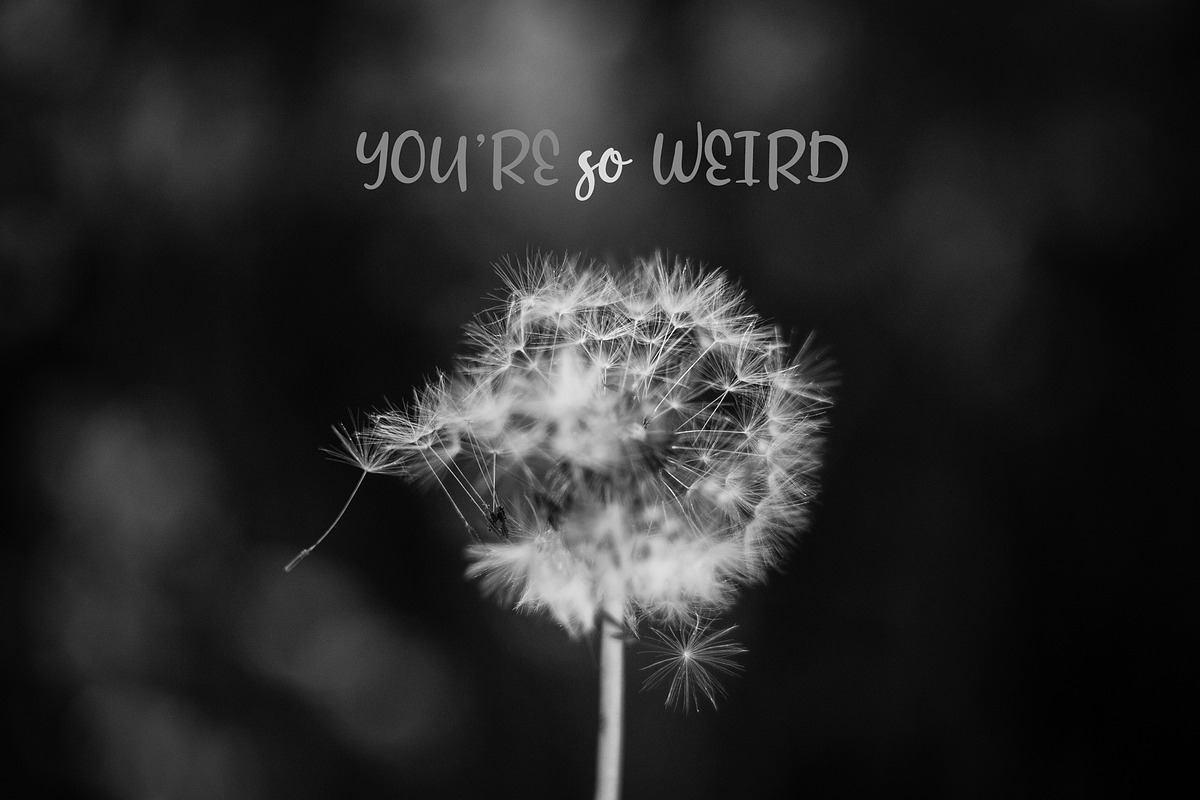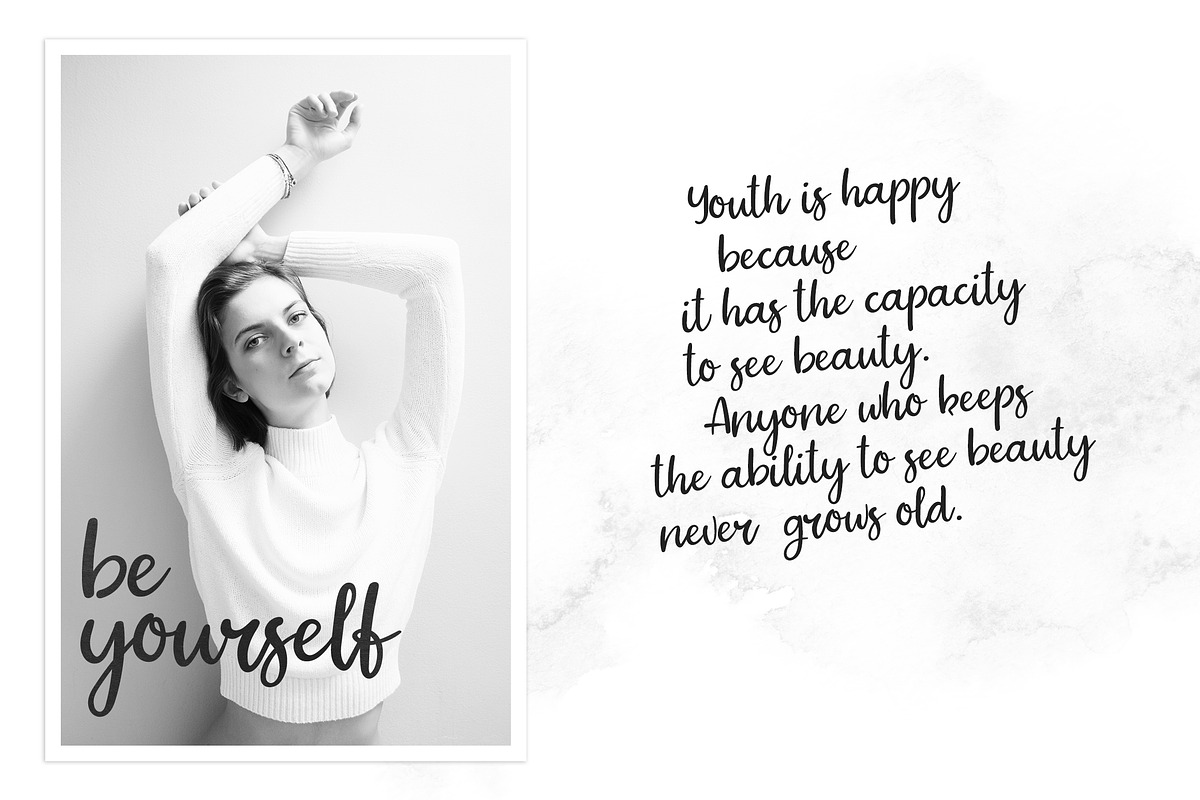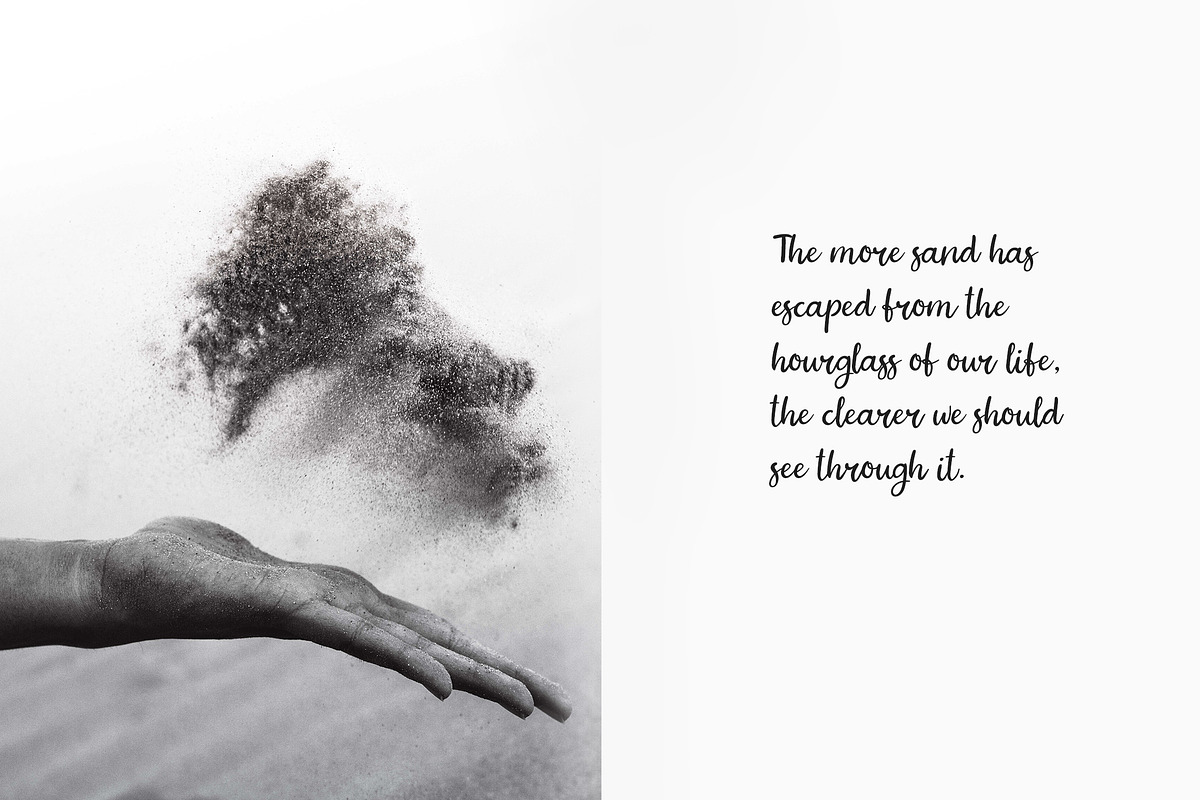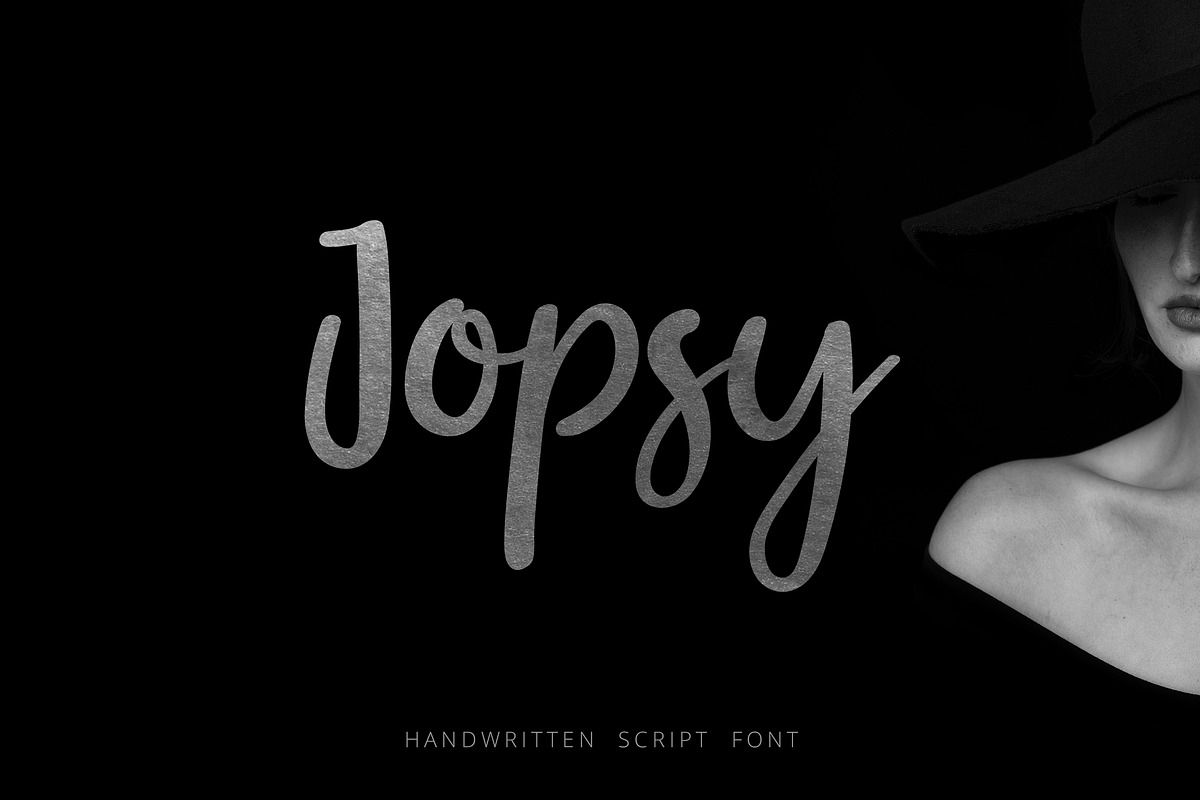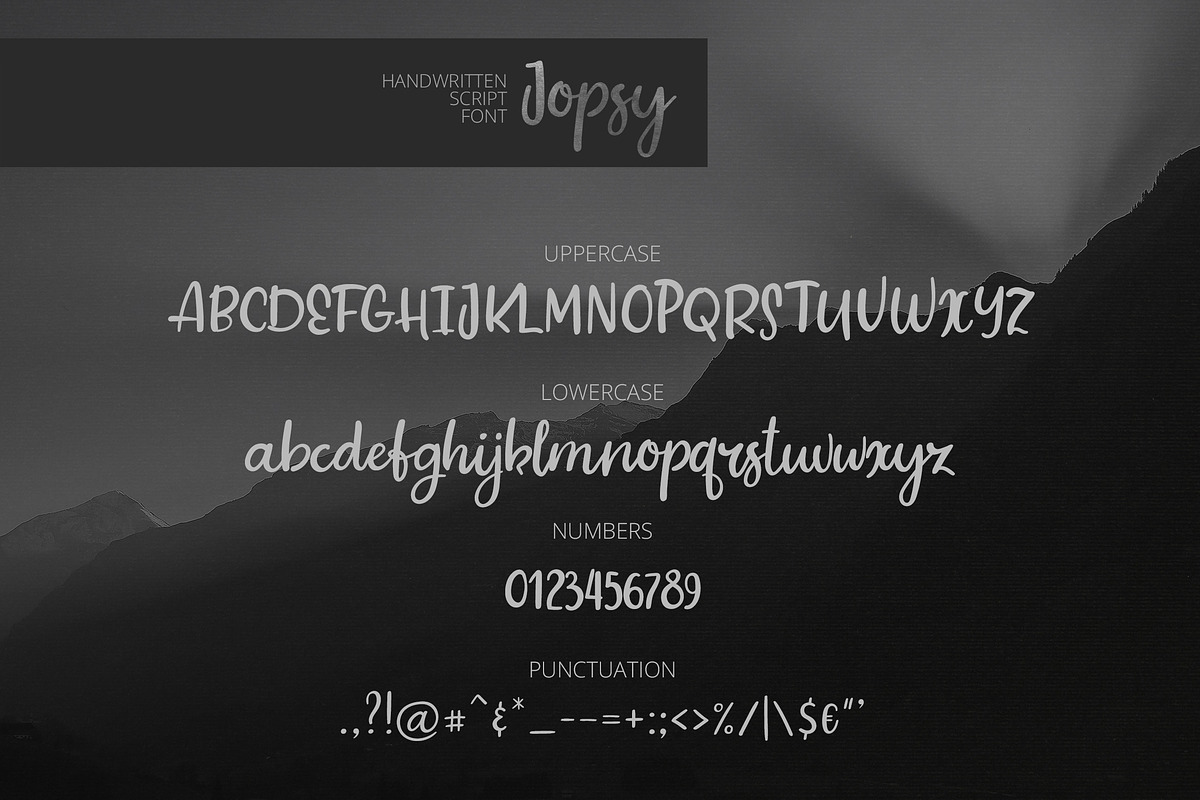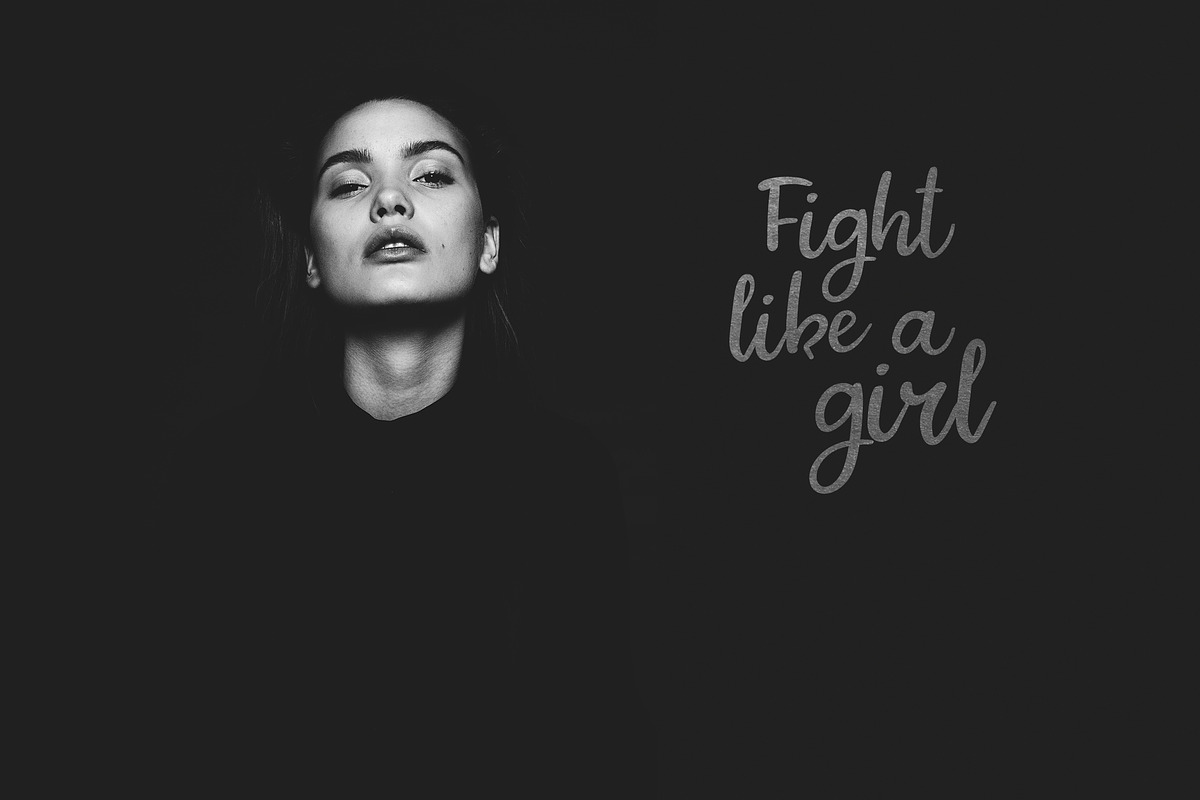
Jopsy. Handwritten Font
Hello! Jopsy is casual handwritten font that is suitable for design awesome greeting cards, posters, branding materials, logo, product packaging, invitations, overlays, quotes, and any other interesting projects.